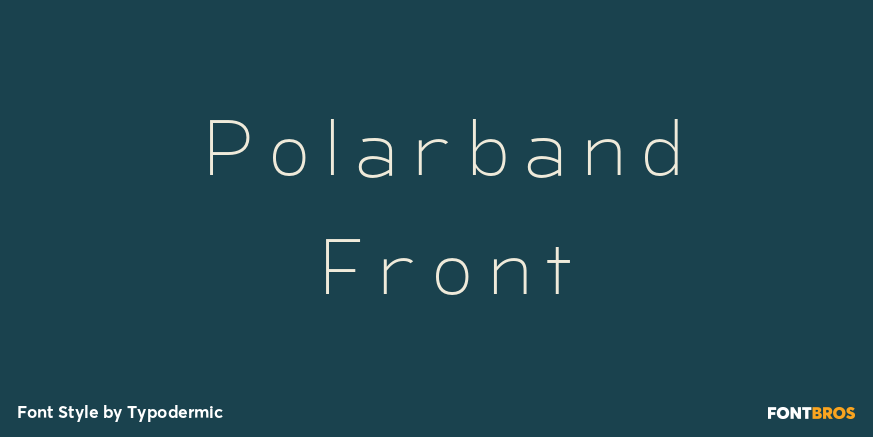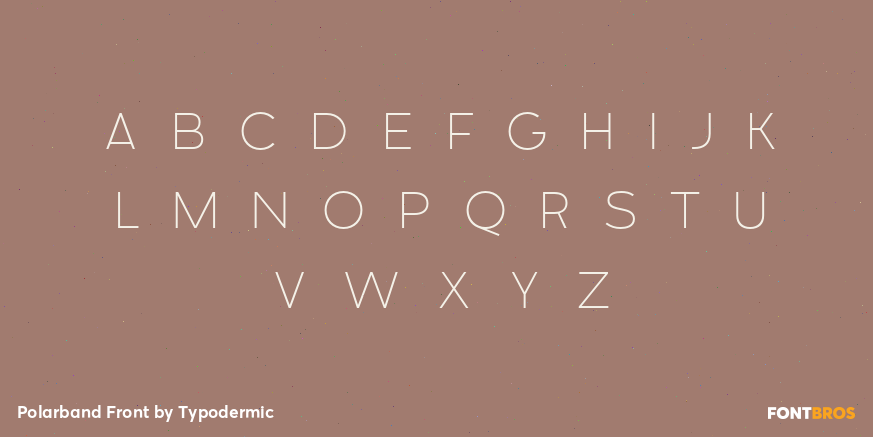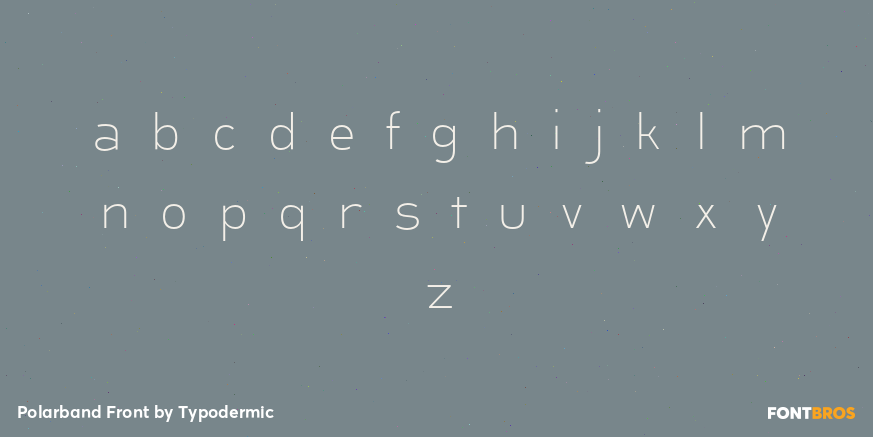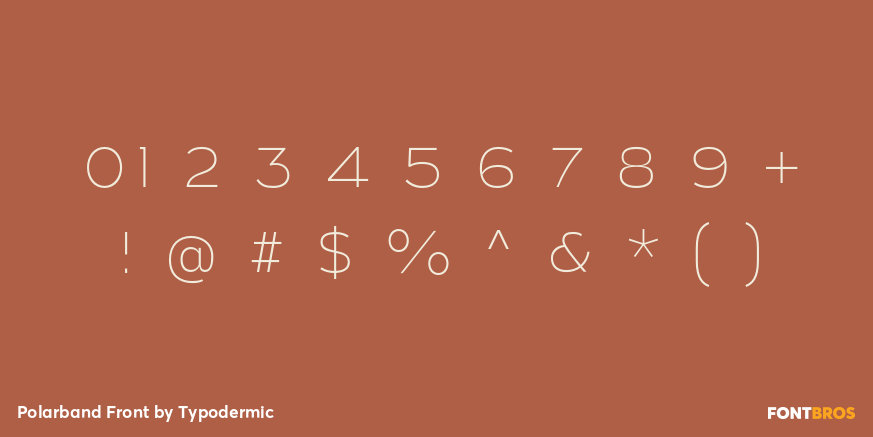
Polarband Front
Buy NowPolarband Front isolates the fine internal line from Polarband’s layered construction. It registers over the solid Polarband Back shapes to create the family’s inline treatment while allowing the line and letter body to carry different colors. On its own, Front becomes a light linear version of the same broad geometric alphabet.
Use Front as the contrasting accent in product-range lettering, seasonal campaigns, restored-cinema graphics, venue screens, and motion titles. It can stay constant while Back changes color across flavors or editions, or move and appear independently in animation. Keep the wording, size, and alignment matched to Back when building the two-color composite.